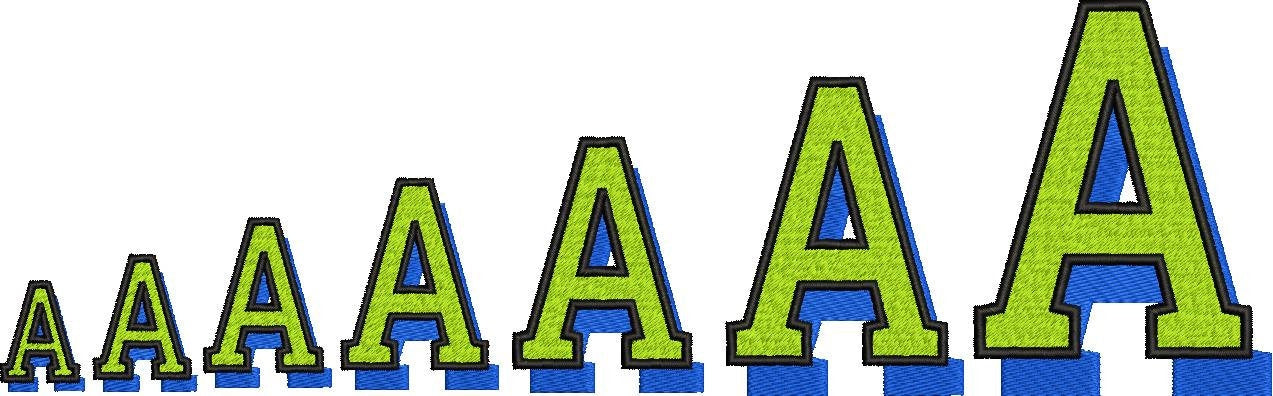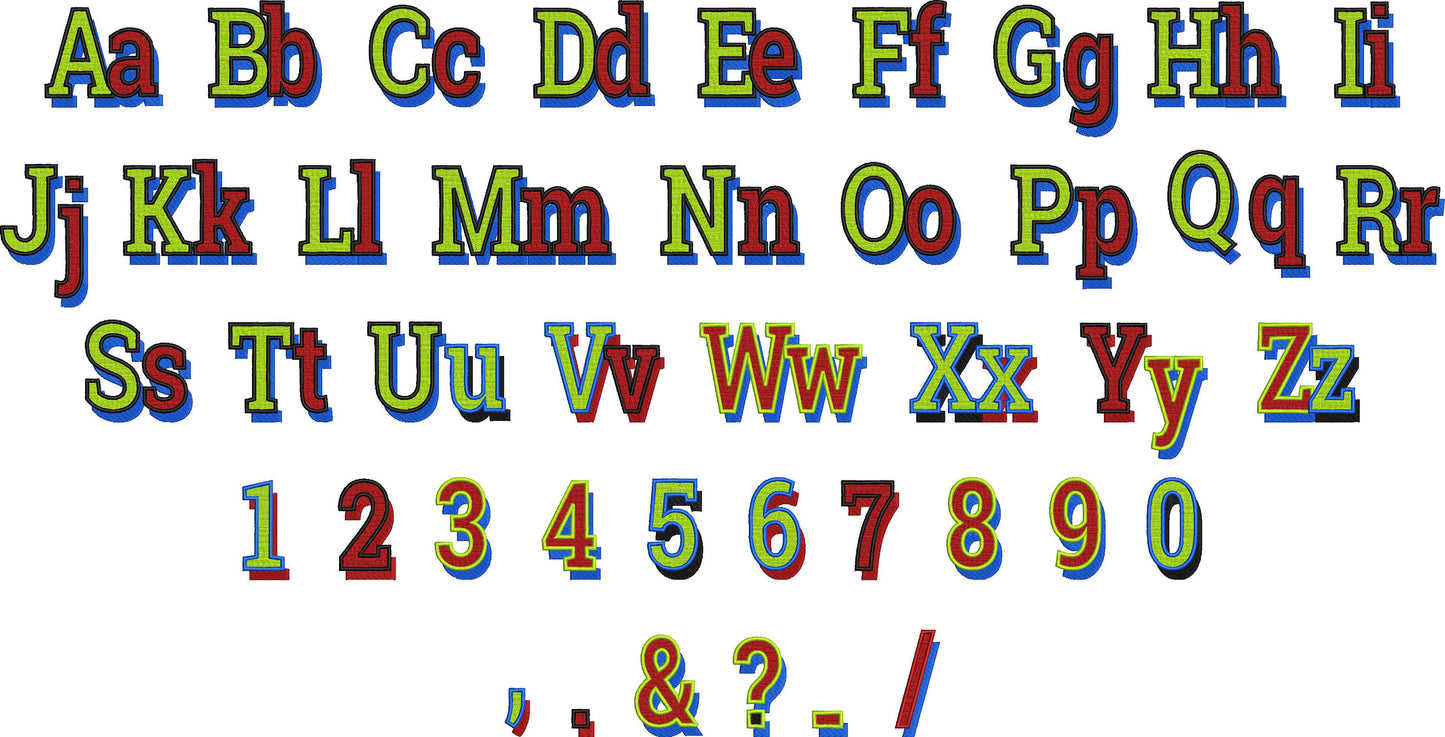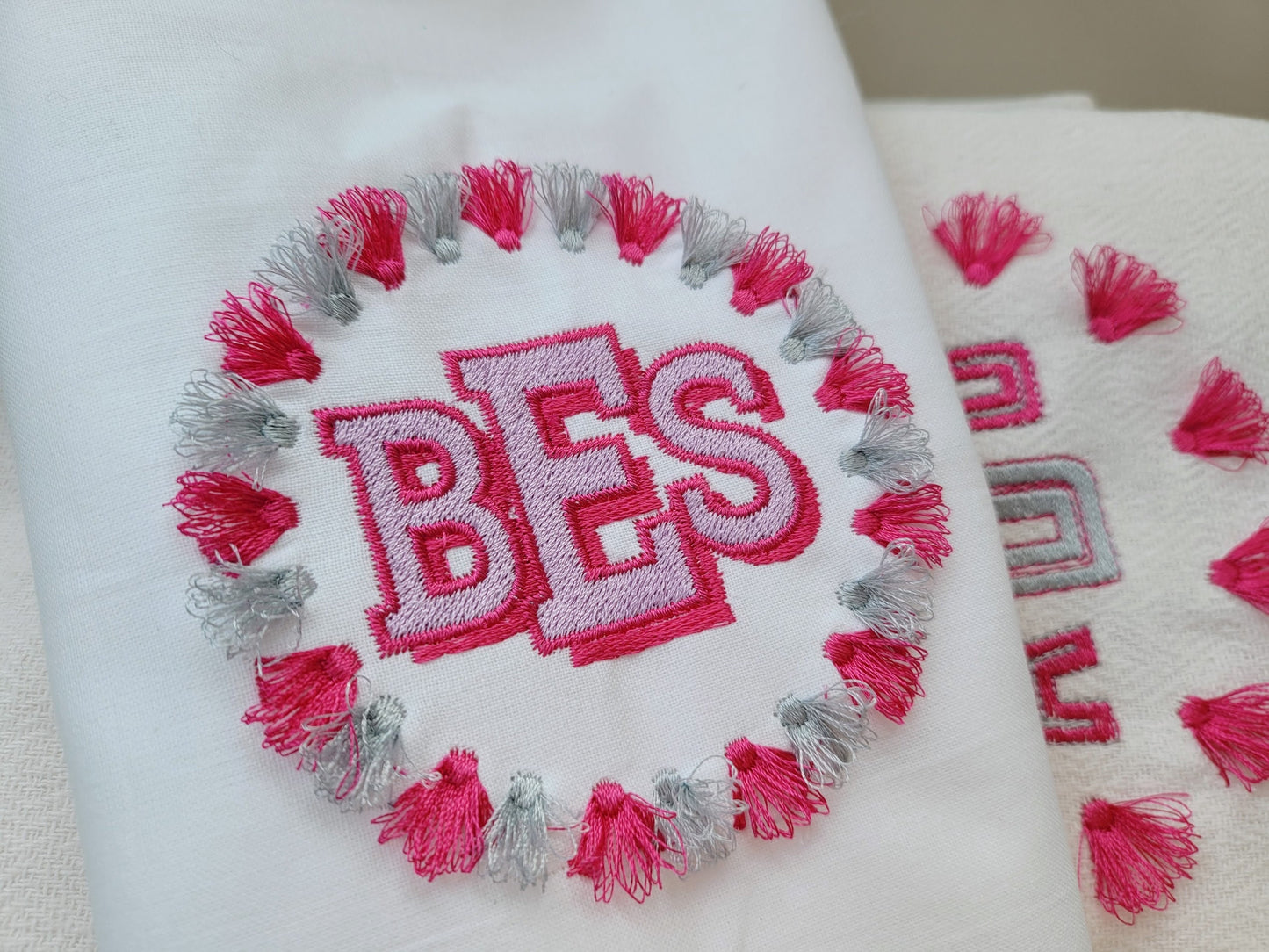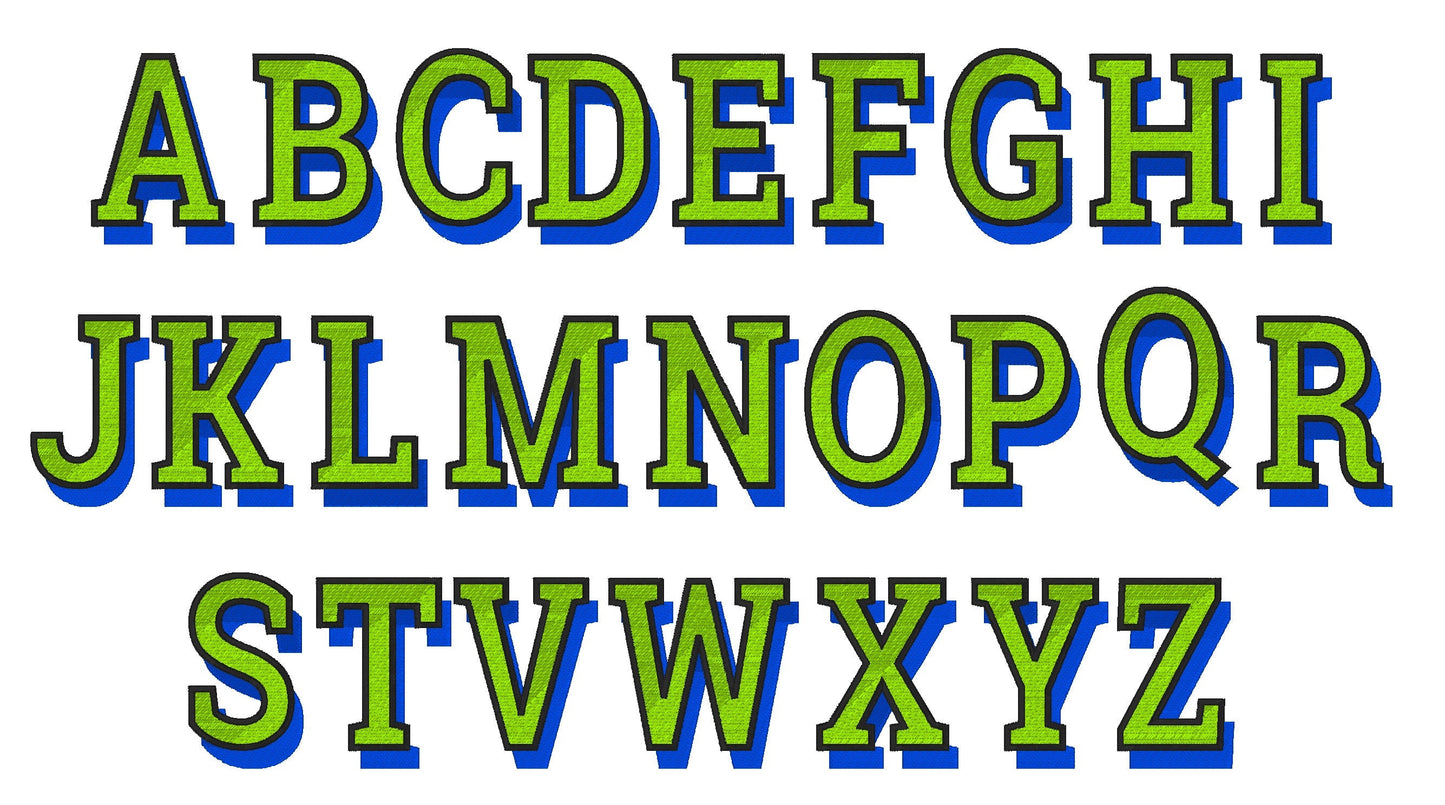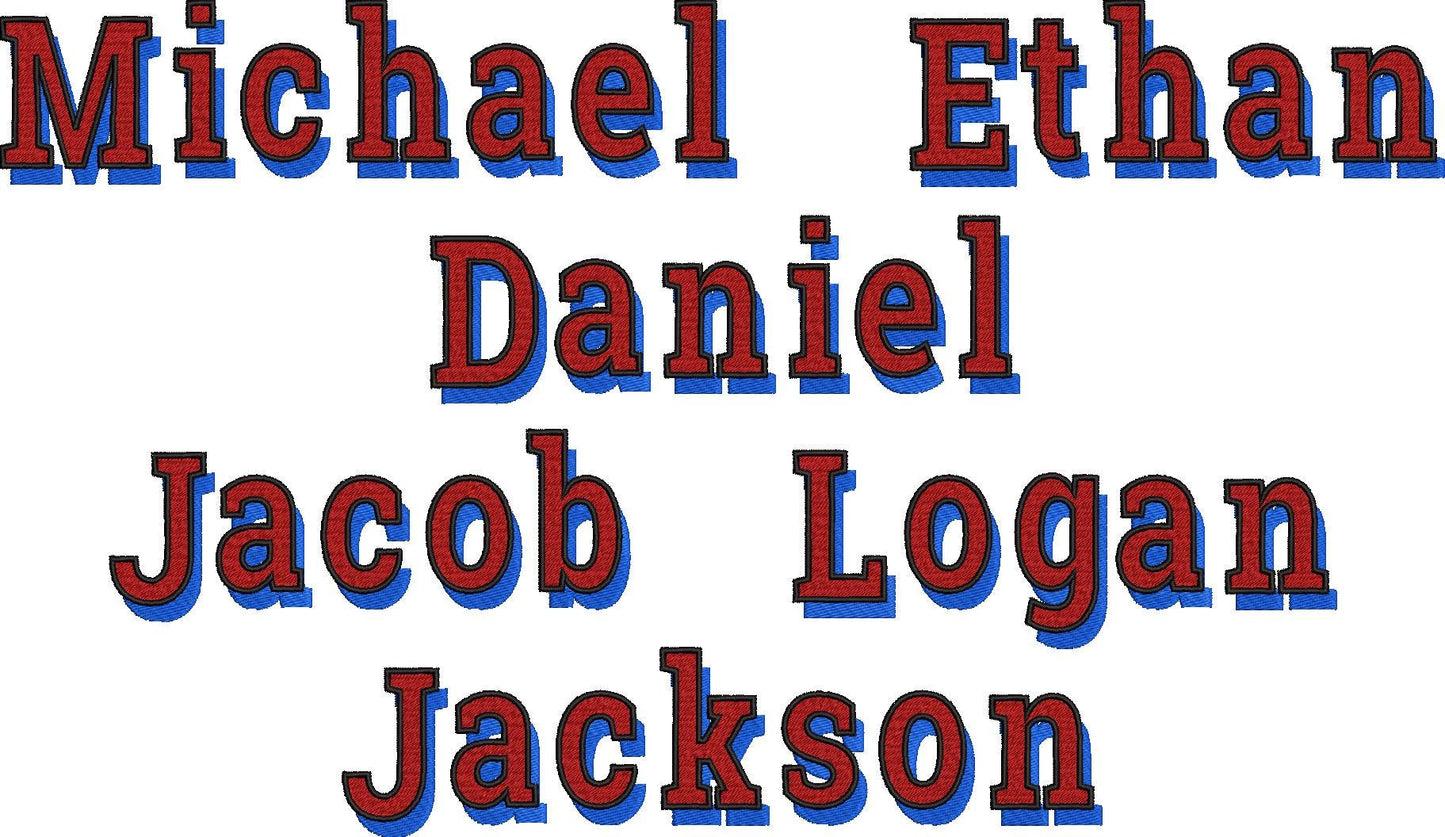
Tassel Circle Monogram and Font Set
Or click to open the linkA summer monogram set: a fringed tassel circle frame with a two-color shadow font, for towels, beach bags and pillows.
The tassel frame comes in 3, 4, 4.5 and 5 inches; its fringe is safe to wash. The font has uppercase and lowercase letters, numbers and punctuation in 1.3, 1.6, 1.8, 2, 2.5, 3.5 and 4.1 inches.
- Fringed tassel circle frame, 3 to 5 in
- Two-color shadow font
- Uppercase, lowercase, numbers, 1.3 to 4.1 in